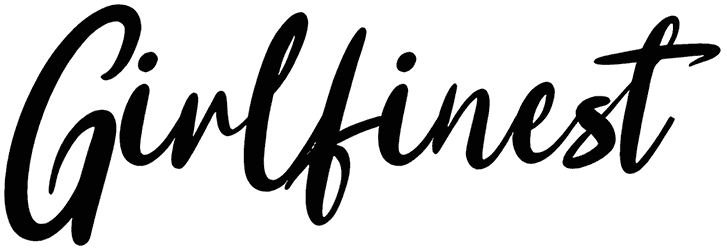
Girlfinest Font
Girlfinest is a signature font with an aesthetic feel that helps create an emotional attachment to products and services. That’s why business leaders and marketing experts value this script font, not only in their logos but also in their advertising, even though it doesn’t have numbers and readability.
This font can create a lasting, seamless design for you that can inspire your originality and superior personality to the audience.